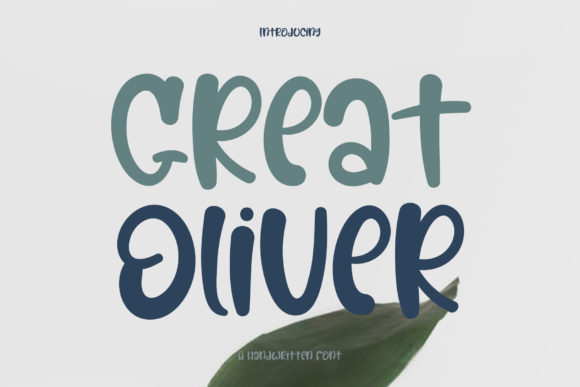
Journey into the whimsical world of Great Oliver Font, a delightful script font brimming with personality and charm. Its playful and authentic strokes evoke a sense of nostalgia, making it the perfect companion for any children's activity or school project. Unleash your creativity and let your imagination run wild as you bring your designs to life with this captivating font. Great Oliver is more than just a font; it's an artistic expression waiting to be discovered.
Immerse yourself in the magic of Great Oliver, a font crafted with the utmost care and precision. Each letter dances across the page, exuding a playful energy that's sure to capture the hearts of your audience. Whether you're designing invitations, greeting cards, or playful posters, Great Oliver will add a touch of uniqueness that sets your work apart.
But what truly sets Great Oliver apart is its versatility. It's not just a font; it's a gateway to a world of creative possibilities. Great Oliver seamlessly blends the charm of handwritten notes with the crispness of digital design, making it suitable for a wide range of projects. Unleash your imagination and explore the endless possibilities that await you with Great Oliver.